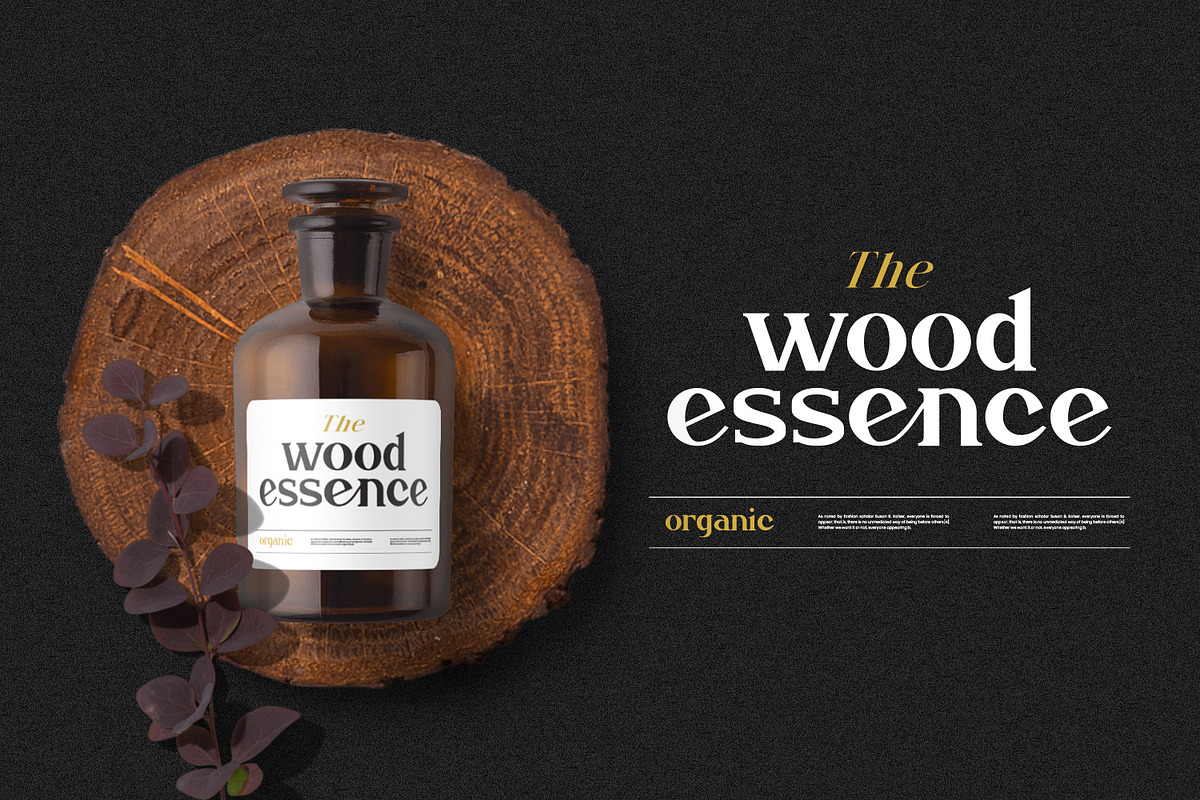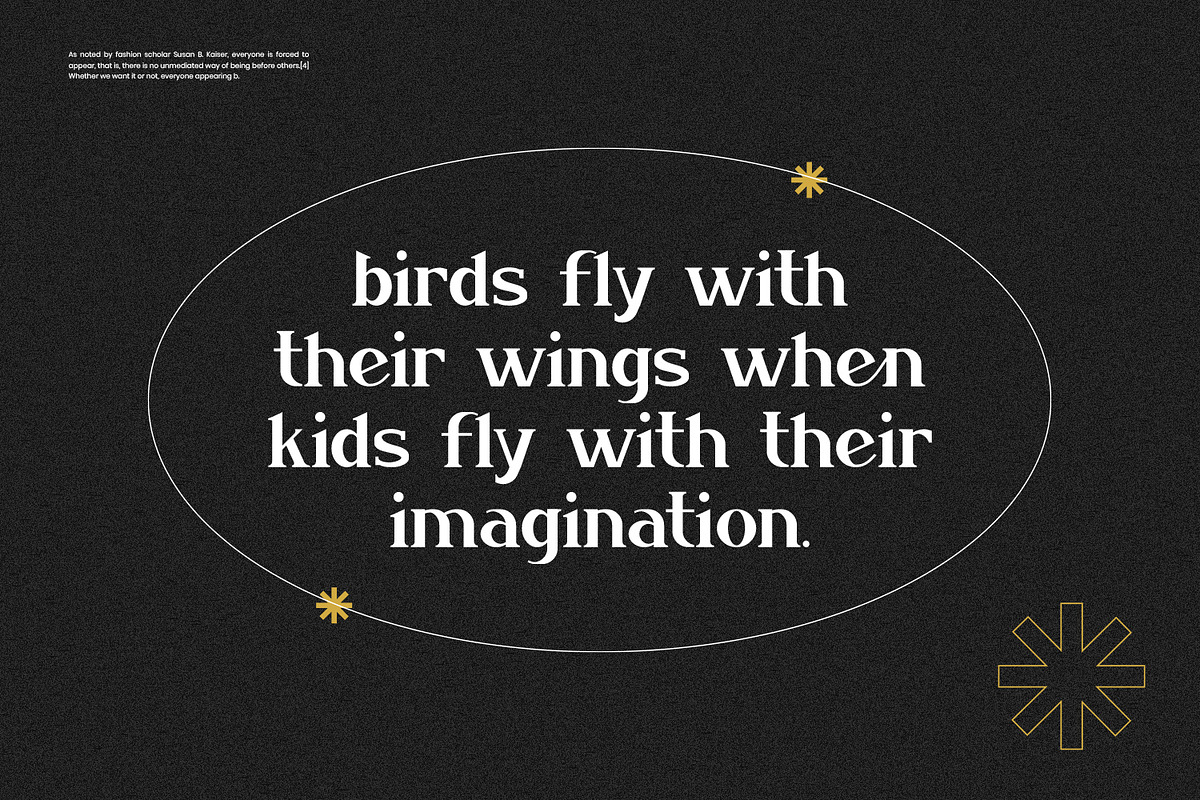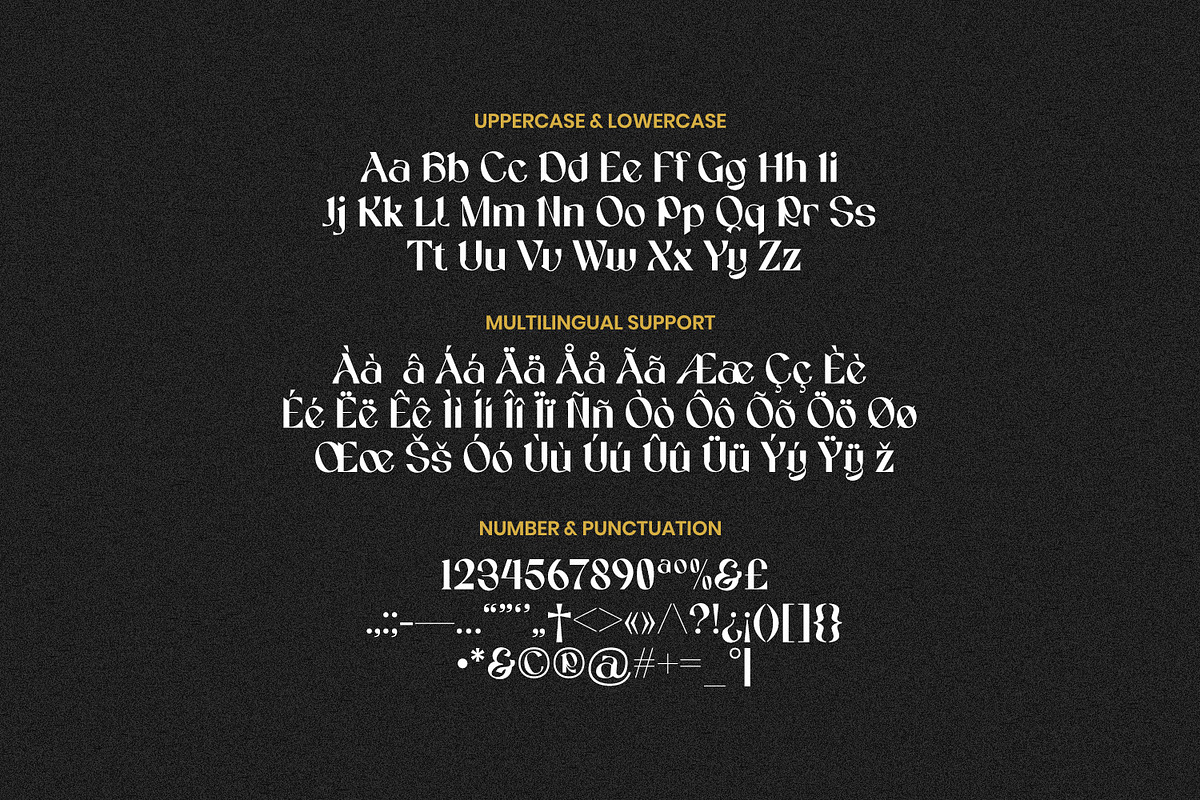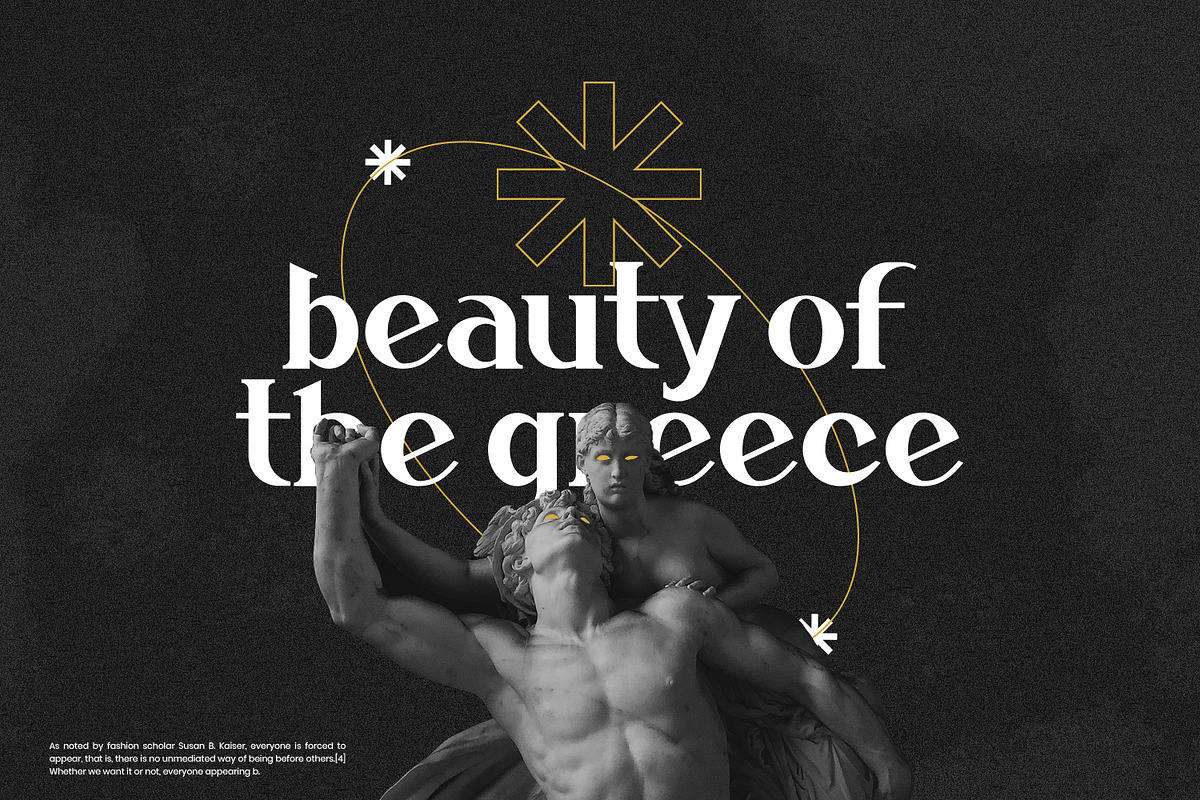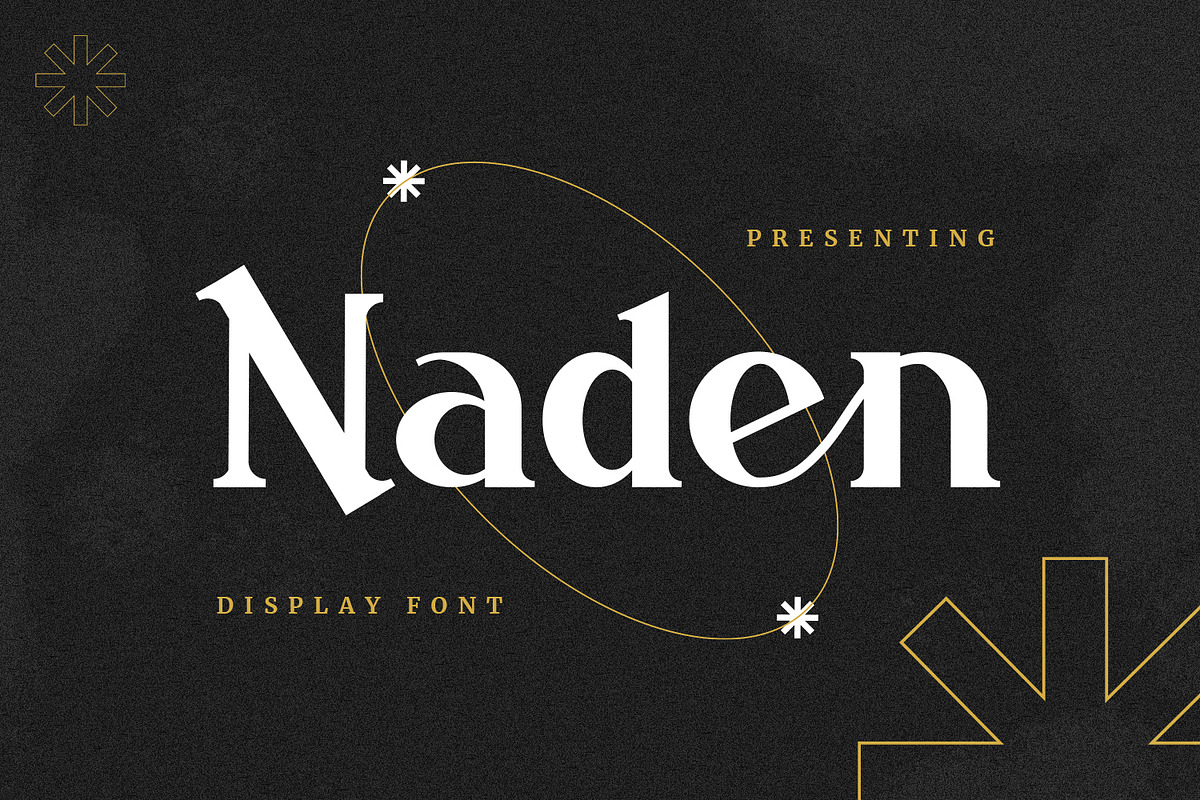
Naden
Naden a display font look with simple, clean and visual elegance with smooth curves and beautiful ligatures.
A very versatile font that works in both large and small sizes. This font is suitable for a wide variety of projects such as headlines, logos, labels, branding projects, magazines, homeware designs, product packaging, mugs, quotes, posters and more.
- Punctuation, Number and Symbol
- Multilingual Support ÀÁÂÃÄÅÆÇÈÉÊËÌÍÎÏÐÑÒÓÔÕÖØÙÚÛÜÝ